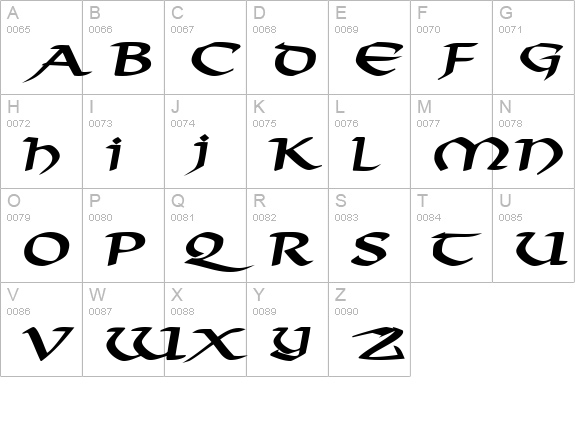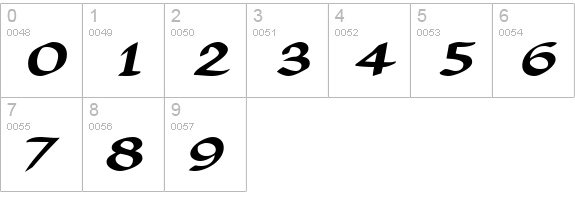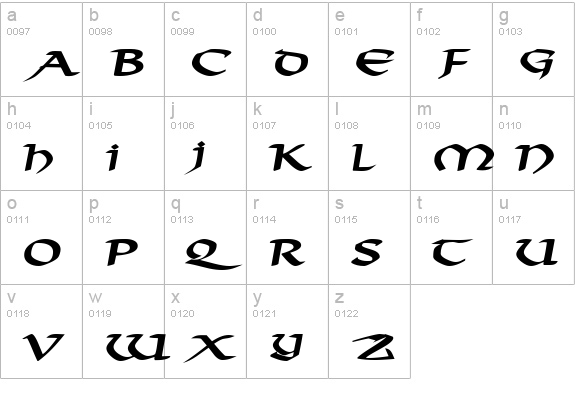
AmorosoSCapsSSK Bold Font Details
AmorosoSCapsSSK Bold is a strong, high-contrast variant in the AmorosoSCapsSSK typeface family \xE2\x80\x94 well suited to headlines, attention-grabbing titles, and strong calls-to-action.
AmorosoSCapsSSK Bold font is a stunning display typeface that exudes elegance and sophistication. With its bold and striking appearance, this font is perfect for making a statement in your designs. Its intricate details and stylish curves make it a versatile choice for a wide range of projects, from branding to packaging and more. And the best part? This beautiful font is available for free download at FontsMarket.com! So you can easily add a touch of class to your designs without breaking the bank. Don't miss out on this opportunity to elevate your projects with the timeless charm of AmorosoSCapsSSK Bold font. Download it now and let your creativity shine!